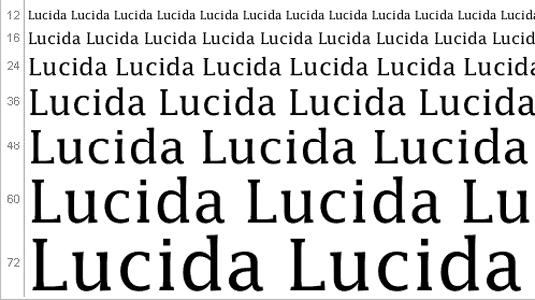
Greatest fonts countdown: 49 – Lucida
49. Lucida
- Kris Holmes and Charles Bigelow, 1985
Millions of computer users work with Lucida without even realising it. The Wingdings symbols were originally a Lucida font, until type designers Kris Holmes and Charles Bigelow sold the collection to Microsoft. And there’s also a Lucida at work in the Mac OS, ensuring good readability in menus, dialog boxes and e-mails.
Bigelow and Holmes have been an authority on screen and printer fonts since 1985 and Lucida was the first to respond to the technical deficits of monitors (72 dpi) and laser printers (300 dpi), while still offering all the most important font styles: sans-serif, serif, script, typewriter and even blackletter. The Lucida superfamily continues to gain new supporters to this day – with Lucida Grande and its expanded character set perhaps being the most popular version.